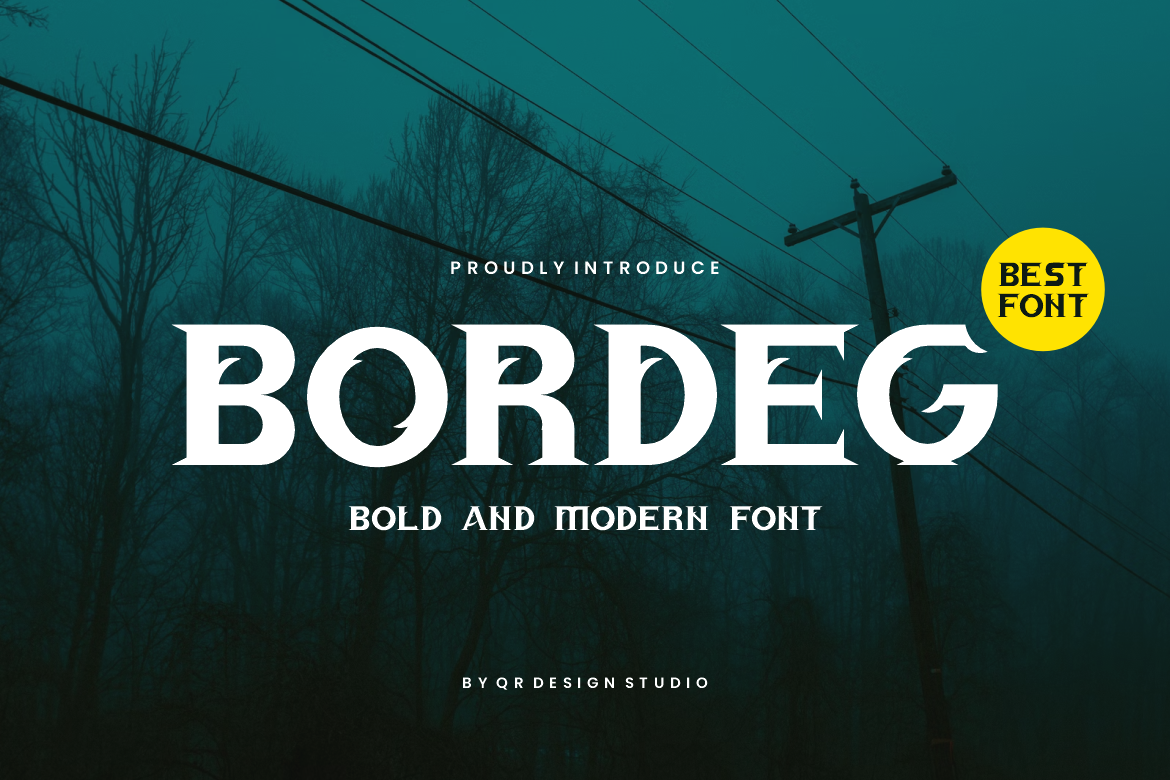
Bordeg - Rock Font
Bordeg - Rock Font is a serif and authentic display font. The font is suitable for any branding project like poster, logo, sport, and many more. Outstanding in a wide range of contexts.